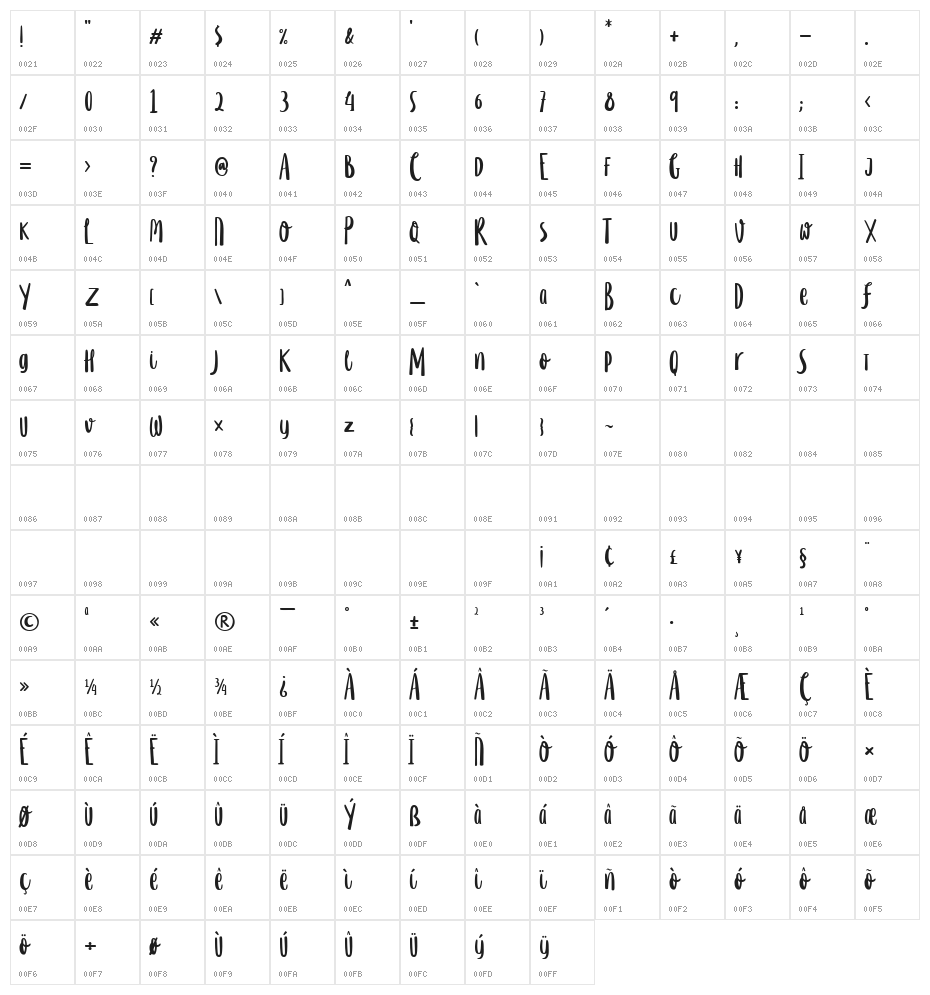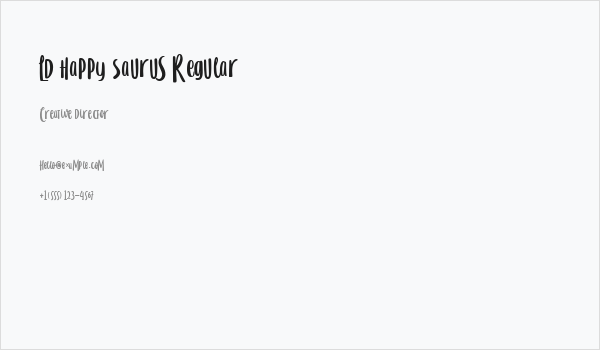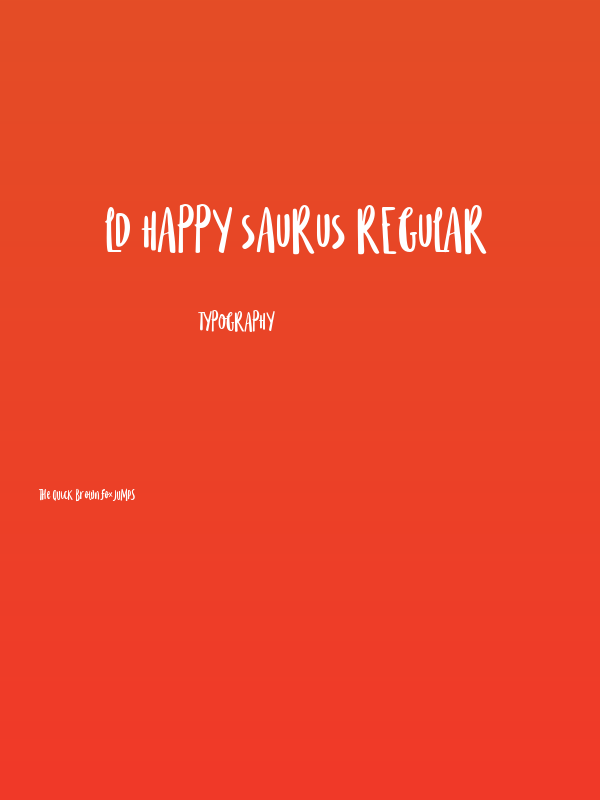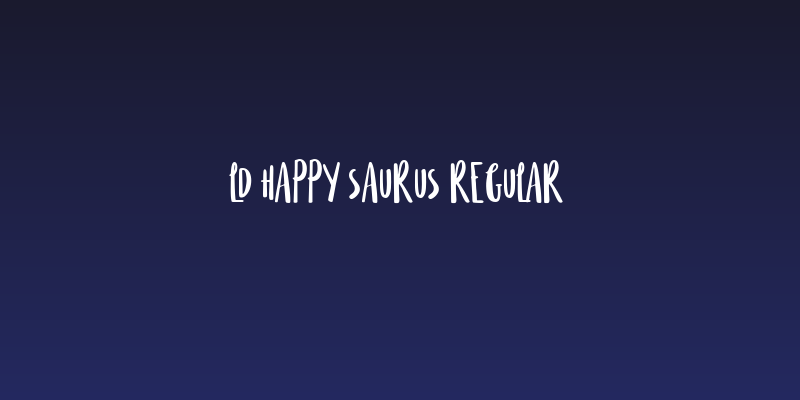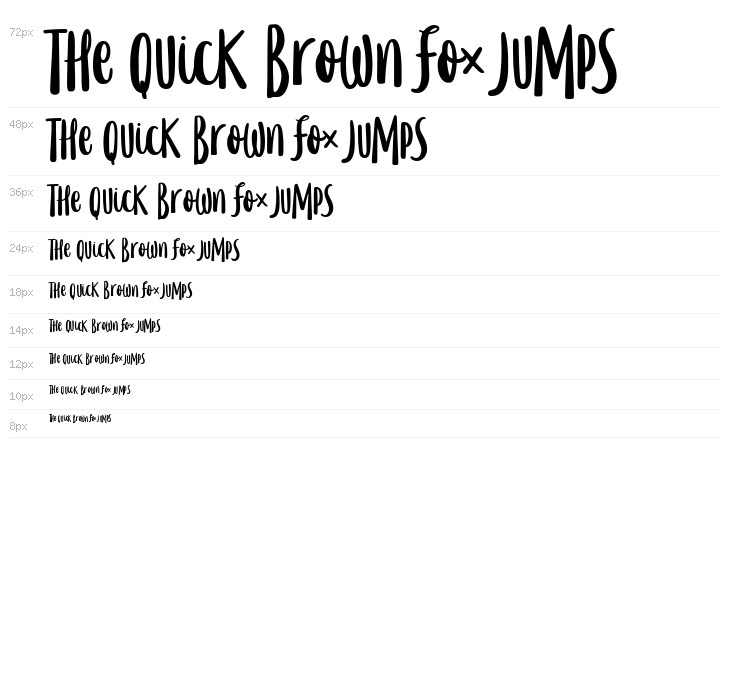
LD Happy Saurus Regular Font
LD Happy Saurus Regular Description
This playful and whimsical font features a handwritten style with a casual and friendly appearance. The letters are slightly irregular, adding a sense of movement and personality. The strokes are bold and rounded, giving it a warm and approachable feel. The uppercase and lowercase letters maintain a consistent style, with some characters exhibiting unique quirks, such as the looped 'g' and the elongated 't'. Numbers and special characters are designed to match the overall aesthetic, ensuring a cohesive look across all text. This font is perfect for projects that require a fun and informal touch.
| Overall Style | Whimsical |
| Proposed Projects | Ideal for children's books, greeting cards, playful branding, and social media graphics. |